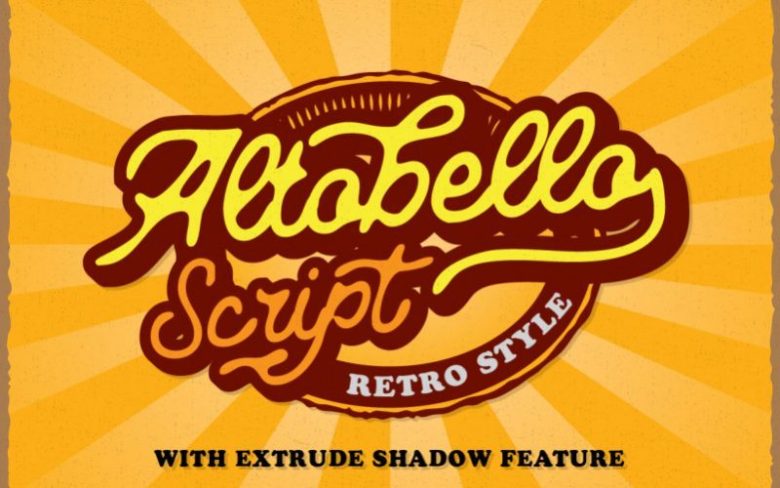
Altobello Script Font
Altobello Script is retro script with extruded (shadow) feature that can save your time when create shadow effect. It can be used in different purposes: lettering and logotype, labels, t-shirts, product packaging, invitations, advertising and any key text in design.